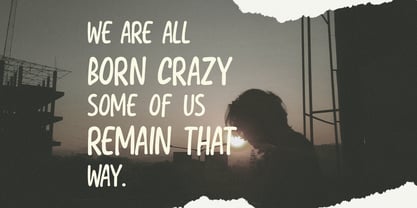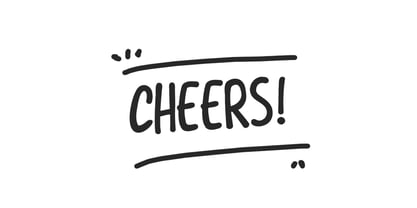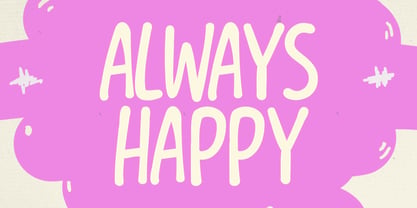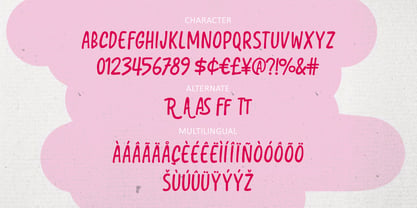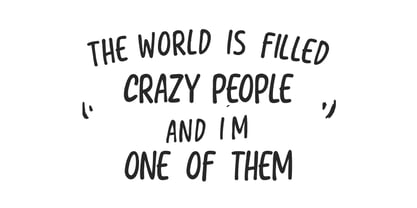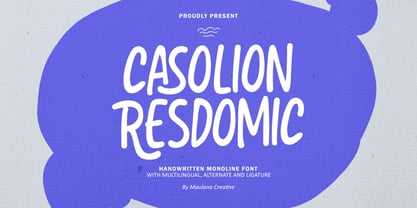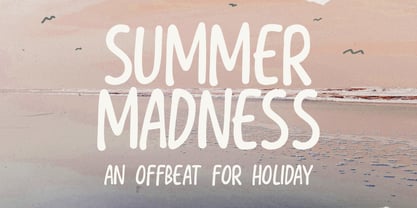
MC Casolion Resdomic
by Maulana Creative
The MC Casolion Resdomic Font Family was designed by Gilang Maulana and published by Maulana Creative. MC Casolion Resdomic contains 1 styles. More about this family
Introducing Casolion Resdomic, a wonderfully playful and organic handwritten monoline font designed to inject a dose of personality and fun into your designs. With its charming, slightly irregular lines and rounded, casual shapes, Casolion Resdomic captures the feel of genuine, hand drawn lettering. Perfect for projects that need a friendly and quirky touch, this font shines in branding, product, designs, social media, quotes, and children's projects.
Designers: Gilang Maulana
Foundry: Maulana Creative